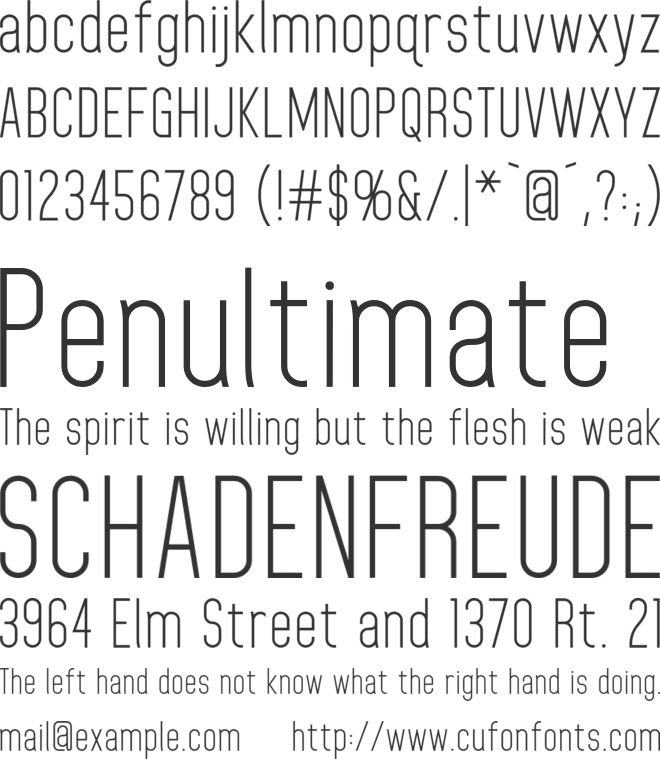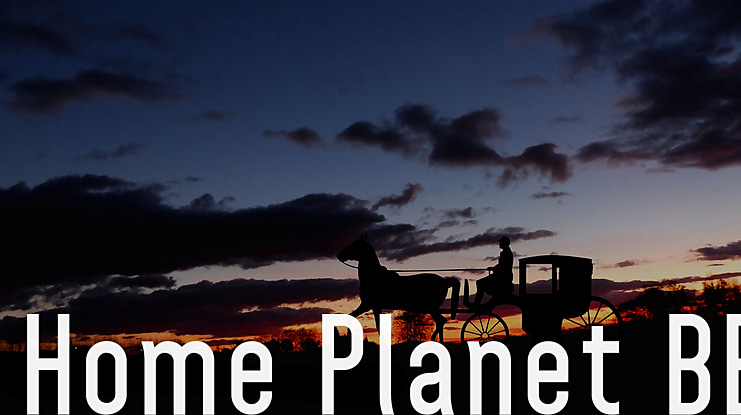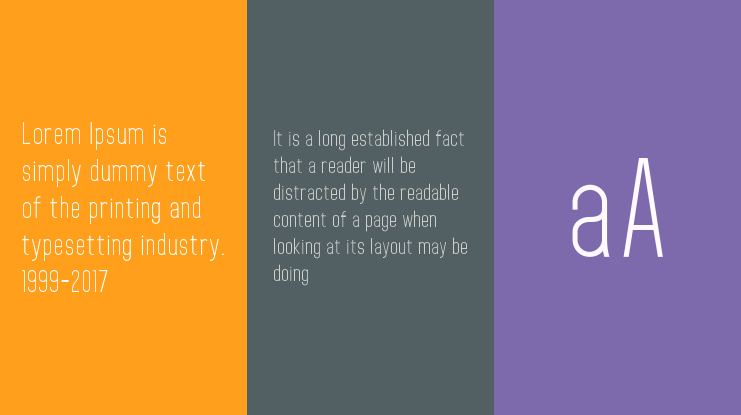
Home Planet BB Font Family
This font started out as a condensed sans font I was going to use for an arc of DC's GREEN ARROW towards the end of my run on lettering. It didn't quite fit the splash page, but I saved the raw letters, and I finally got around to turning them into a real font!